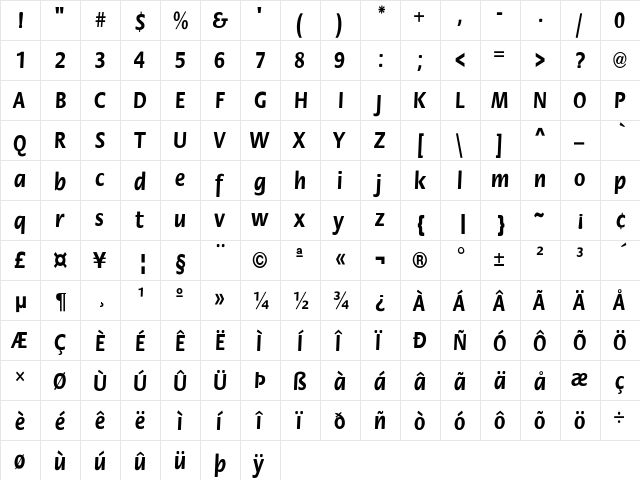
FloraCnd-Bold Regular
Design Context for FloraCnd-Bold Typeface
FloraCnd-Bold is a composed and adaptable typeface that performs quietly and consistently across a wide range of design contexts. The heavy weight commands attention and anchors typographic hierarchies.
Pro Tip: Pair FloraCnd-Bold with a font of contrasting weight or personality to build a more expressive typographic hierarchy.